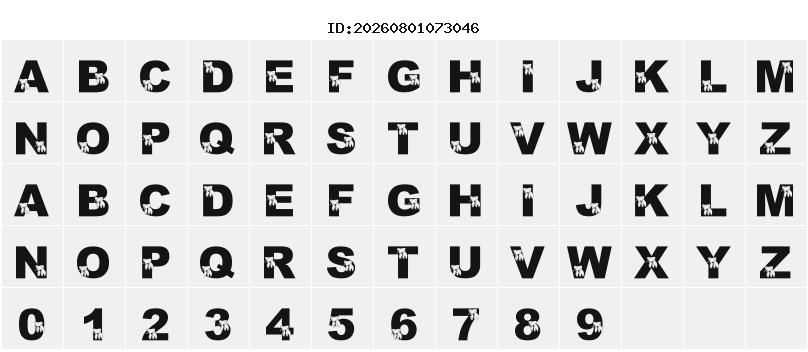
• Font Name: LMS Master Beta Mike
LMS Master Beta Mike.ttf is a modern, elegant sans-serif font designed for ultimate readability and visual harmony. Perfect for branding, headlines, web design, and print materials.